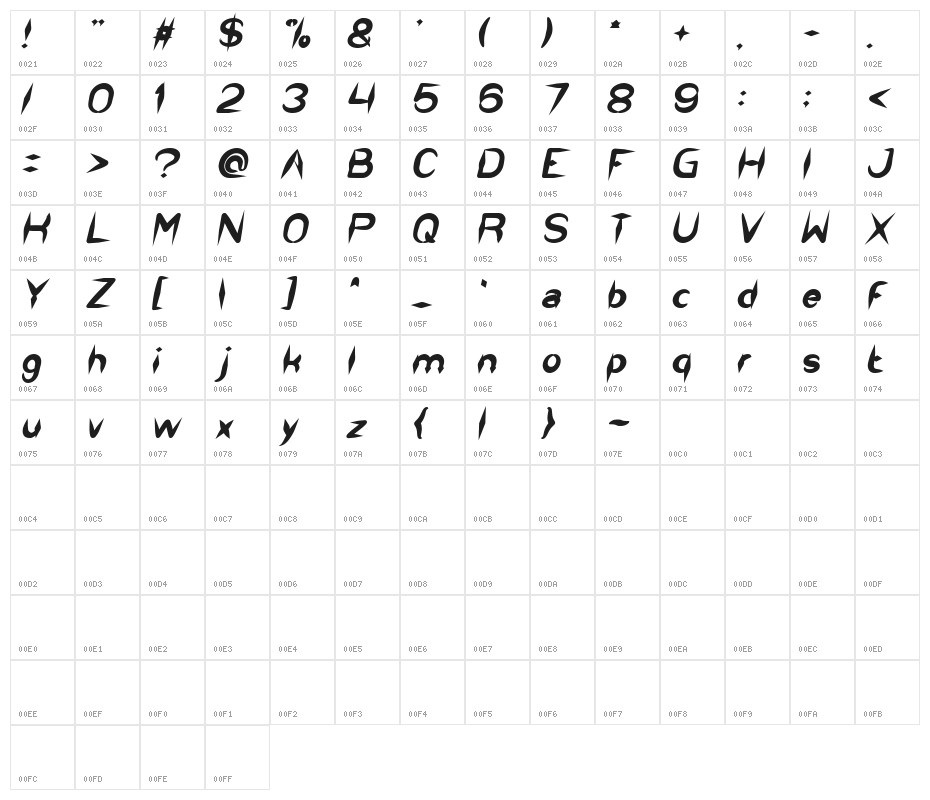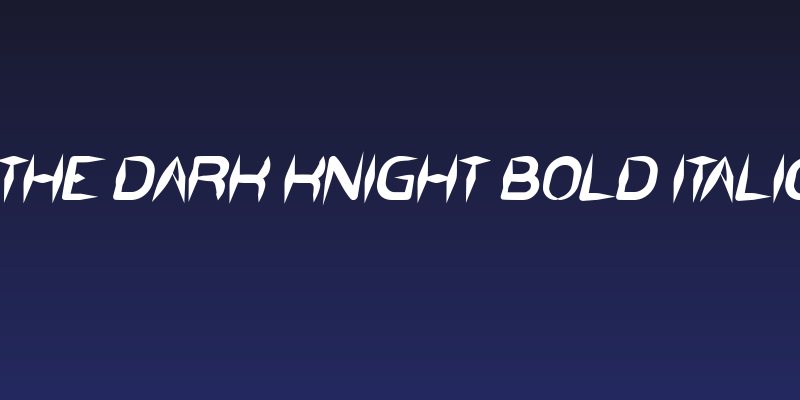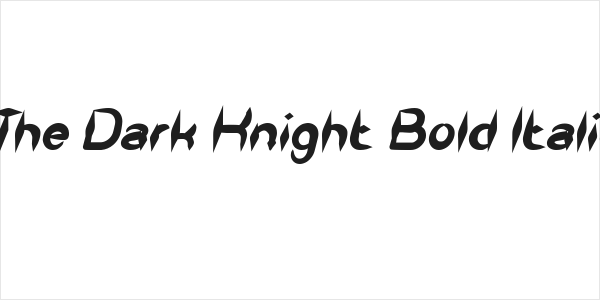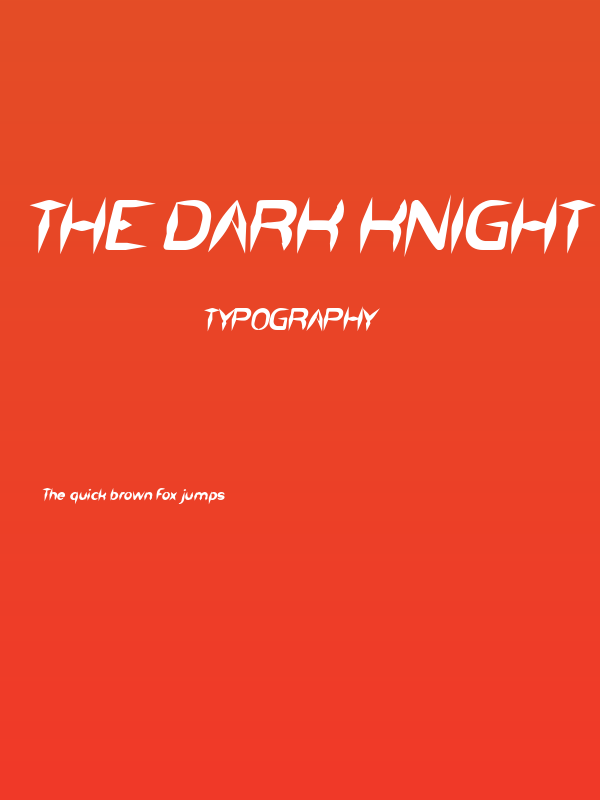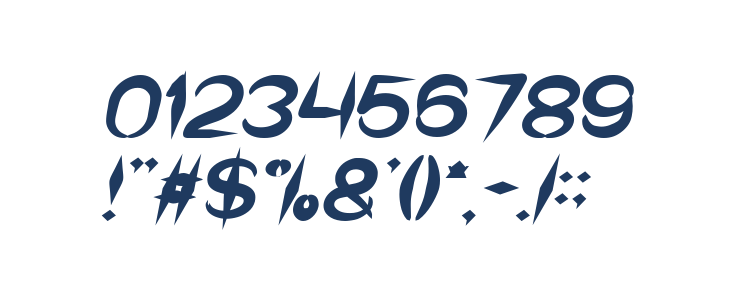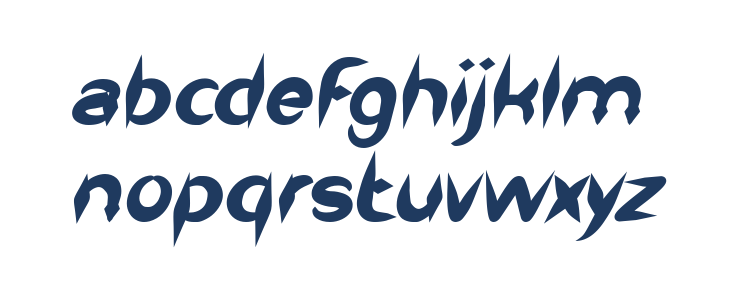
The Dark Knight Bold Italic Font
The Dark Knight Bold Italic Description
This font features a bold and dynamic style with sharp, angular edges and a distinct italic slant. The characters are crafted with a sense of movement and energy, making them stand out with their unique, edgy appearance. The uppercase and lowercase letters maintain a consistent design, while the numbers and special characters complement the overall aesthetic. The font's boldness is emphasized by its thick strokes and high contrast, creating a striking visual impact. Its modern and aggressive style is suitable for projects that require a strong and memorable typographic presence.
| Overall Style | Modern, Aggressive |
| Proposed Projects | Ideal for movie posters, video game titles, branding for edgy products, and any design needing a bold statement. |